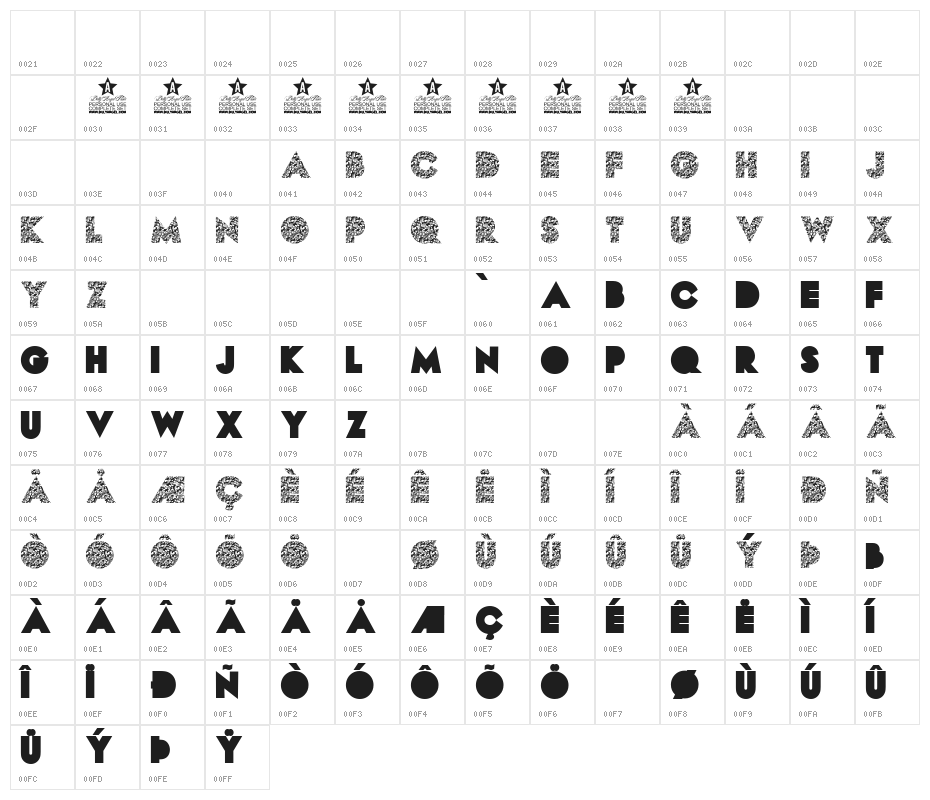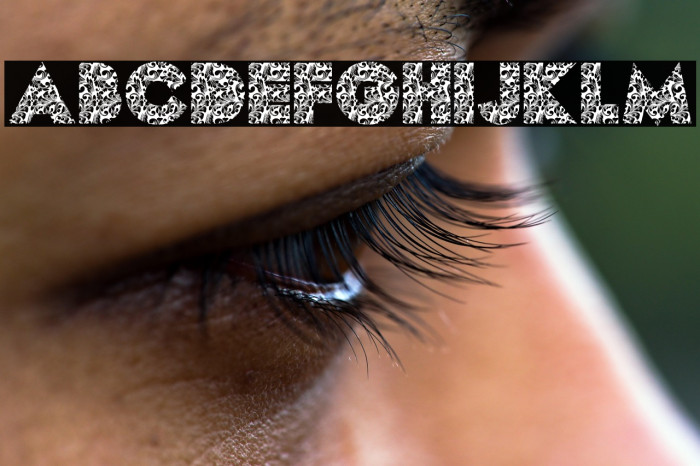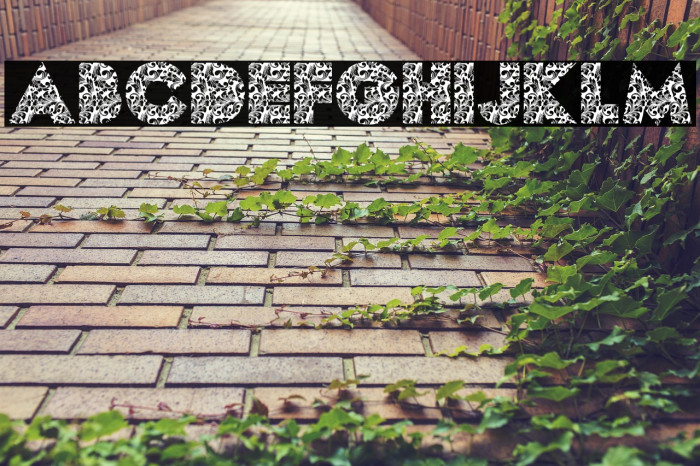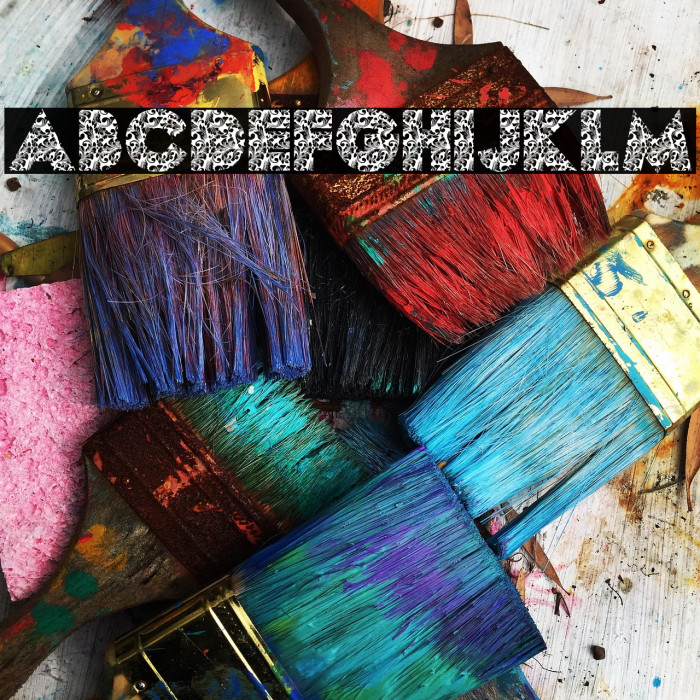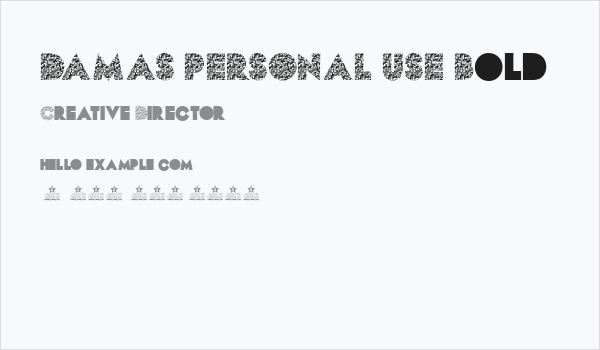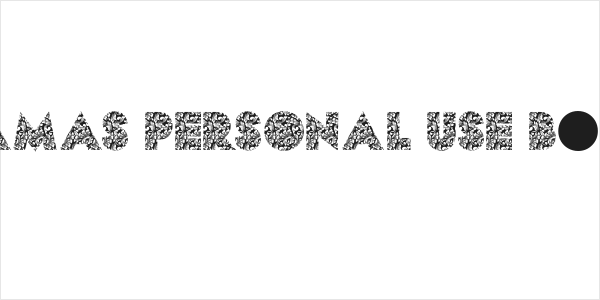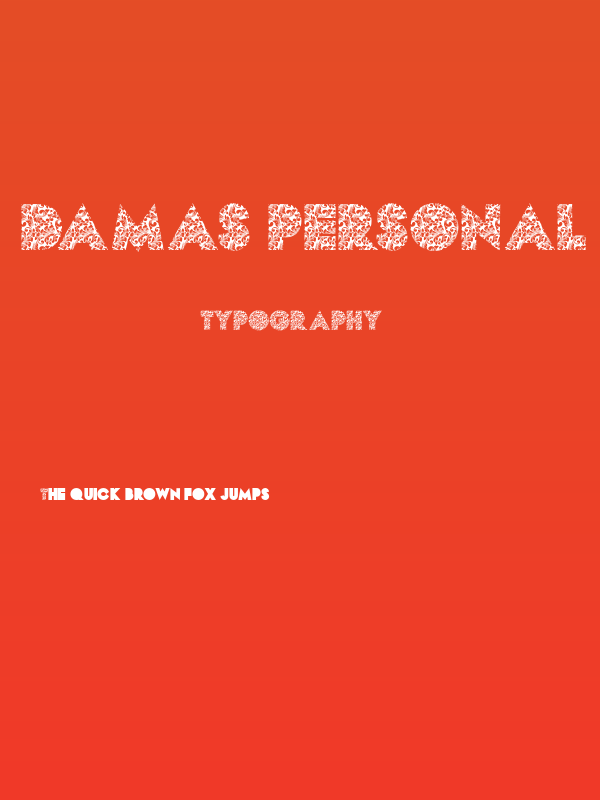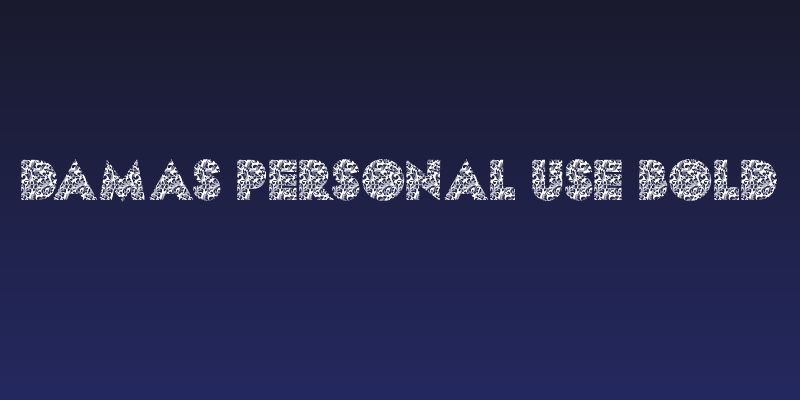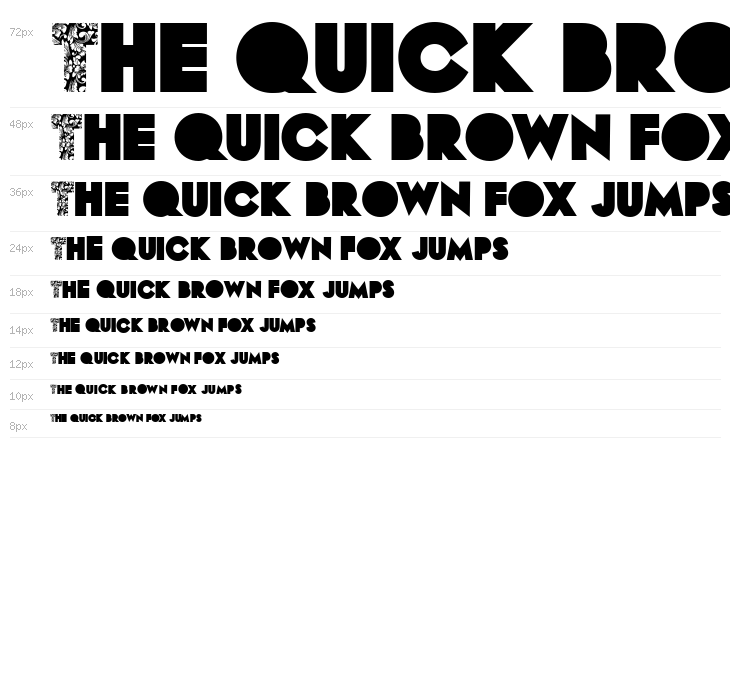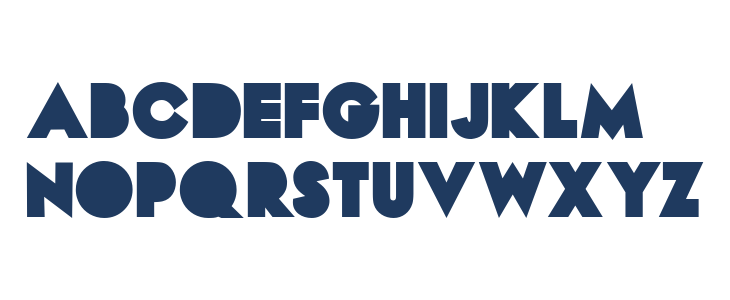
DAMAS PERSONAL USE Bold Font
DAMAS PERSONAL USE Bold Description
This font features a bold, decorative style with two distinct variations. The first set of uppercase letters is intricately designed with a floral or paisley pattern, giving it a textured and ornate appearance. The second set is a solid, bold geometric style with sharp angles and a strong presence. This combination of decorative and geometric elements makes it versatile for creative projects. The font is eye-catching and ideal for making a statement in design work.
| Proposed Projects | Ideal for posters, logos, event invitations, and branding that requires a bold and artistic touch. |